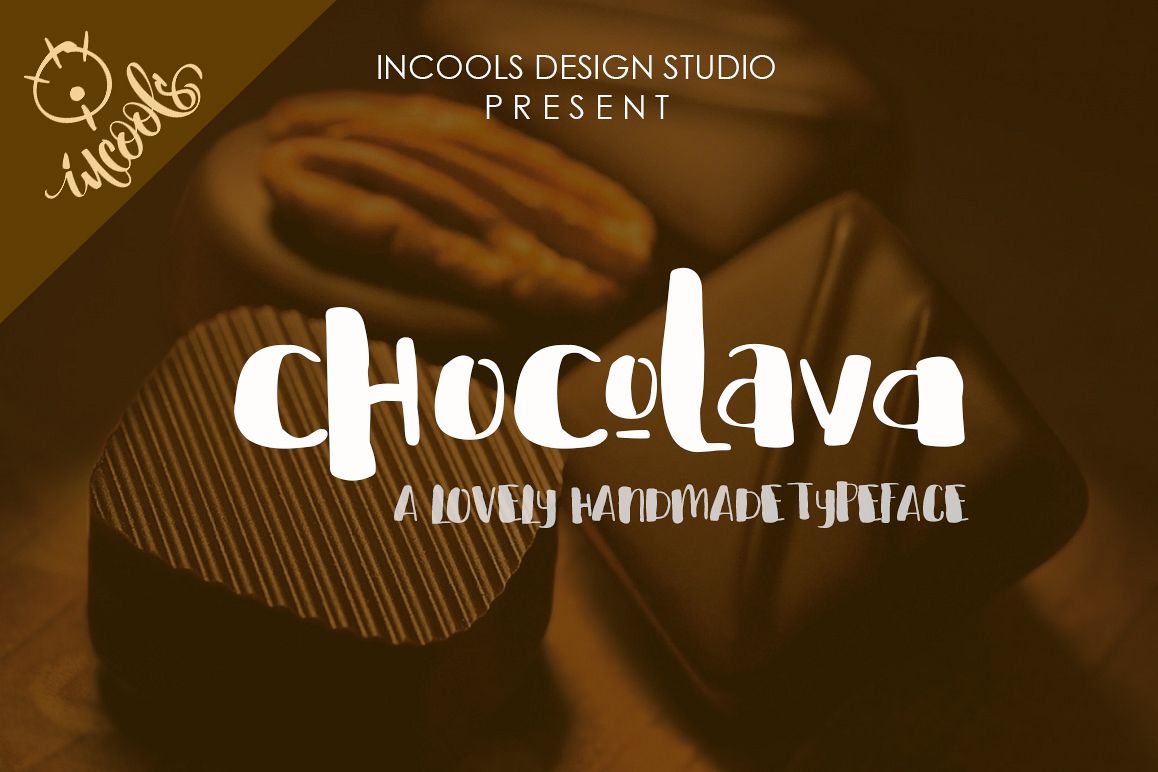
Chocolava
Chocolava-Regular
chocolava is a lovely handcrafted typeface made with love. as sweet as chocolate, as fun as holiday, as honest as a gift. This beautiful typeface is suitable for various purposes. such as headings, signature, logos, Event, t-shirt, quote, letterhead, signage, posters, badges etc.
The Features of this fonts is:
Basic Latin A-Z and a-z
multilingual glyph
Numbers
International Symbols include
this beautiful typeface is suitable for various purposes. such as headings, signature, logos, Event, t-shirt, quote, letterhead, signage, posters, badges etc.